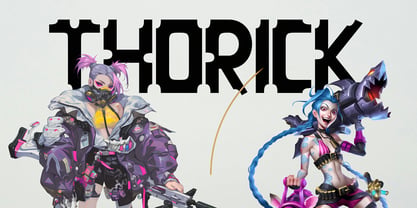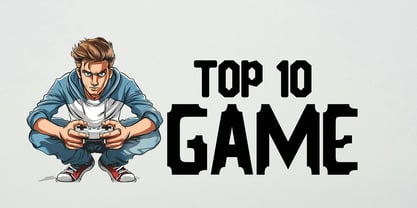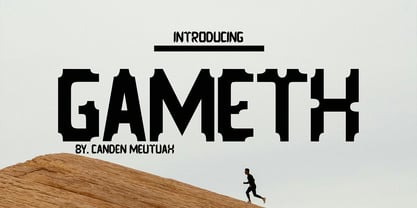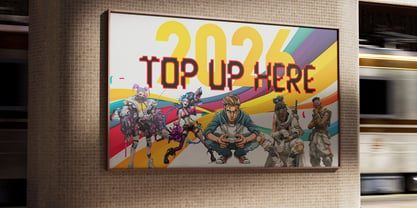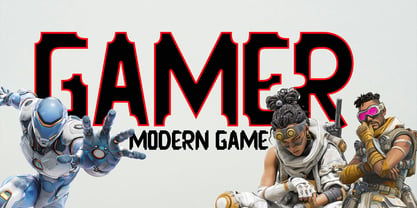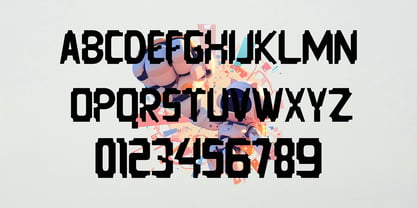
Gameth
by Canden Meutuah
The Gameth Font Family was designed by Canden Meutuah and published by Canden Meutuah. Gameth contains 1 styles. More about this family
Gameth is a stunning sports font with wide, bold letters and a modern, dynamic design. This font is perfect for high-speed car racing titles, running competitions, cycling, automotive game logos, monograms, and other sports titles that use bold fonts, or posters, logo designs, editorial titles, album covers, and fashion branding. This font attracts attention with its distinctive touch. It also offers other modern and dynamic text.
Gameth excels in readability and size, creating an effect of power, thickness, and speed. Designed as a fast and dynamic font, but with a slightly different font design, check it out and get it now.